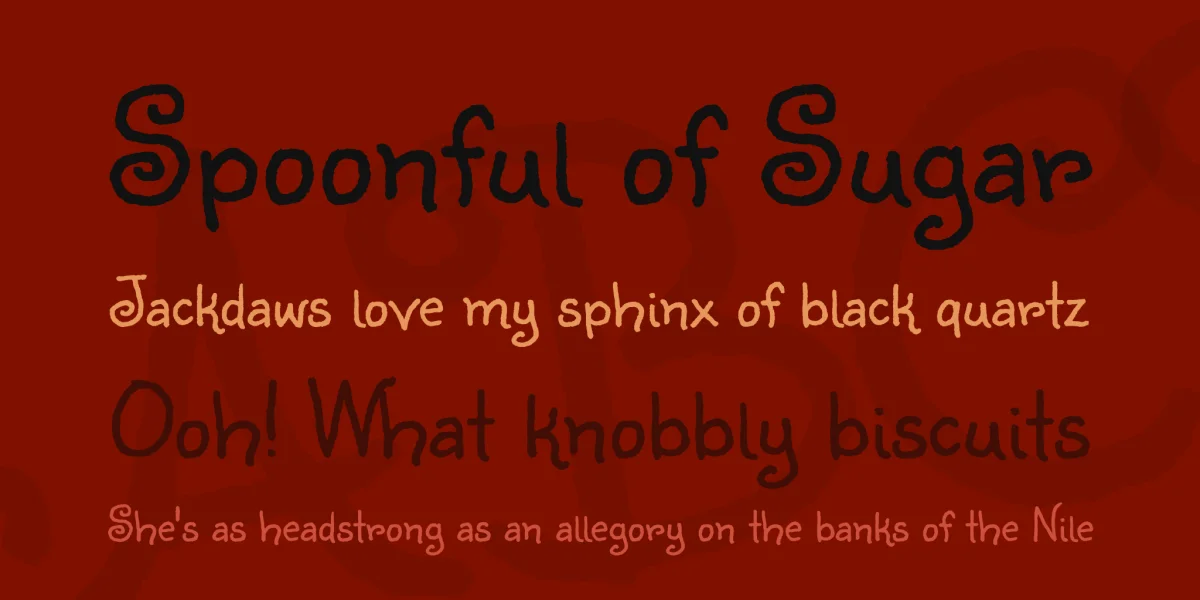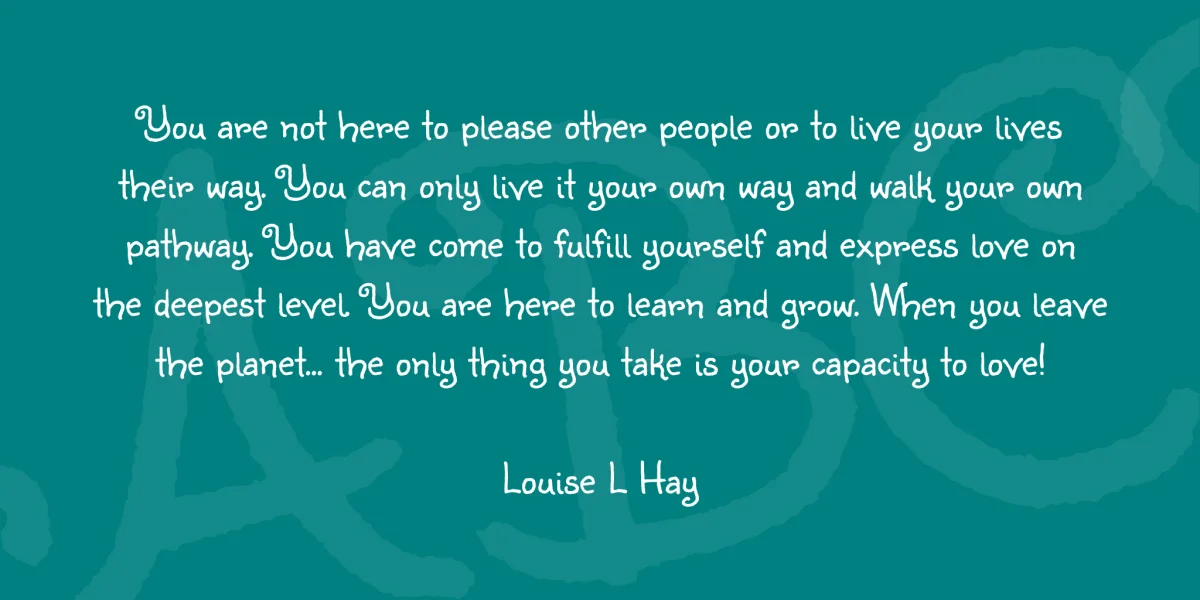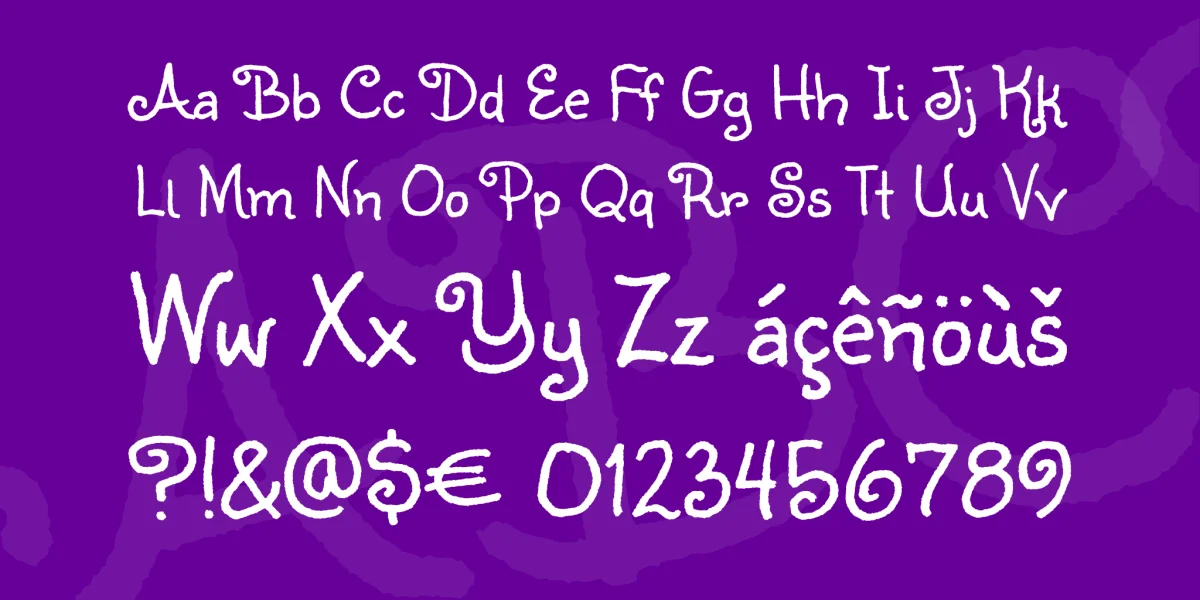
Is your website a little weary? Is your blog a bit boggy? Brighten them up with Sunshiney, a little a ray of hand-crafted goodness by Squid! This happy little font is sure to lighten up the dreariest of domains or the frumpiest of facebook pages. Happy, happy!